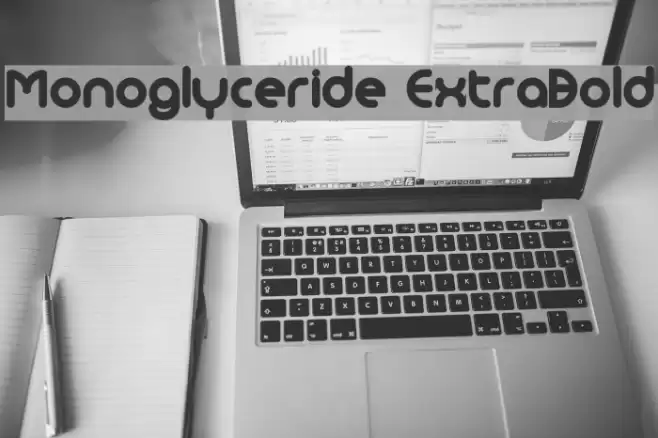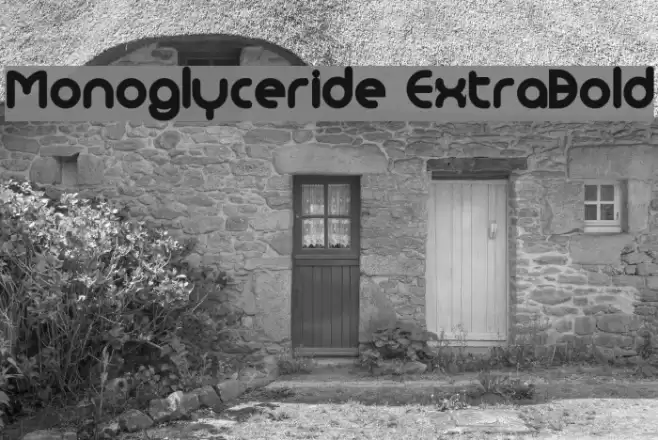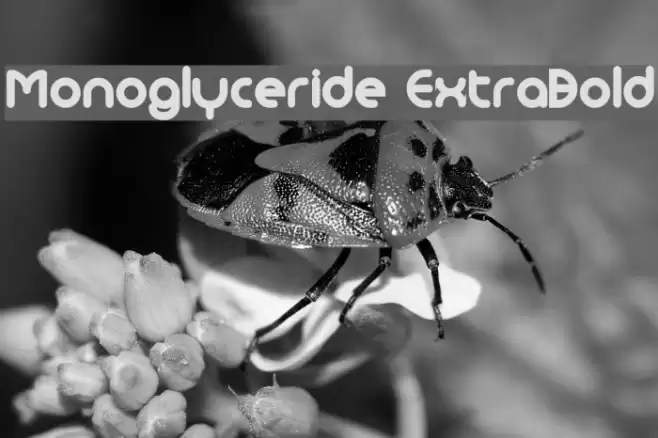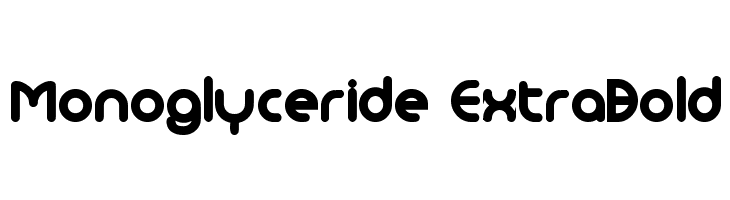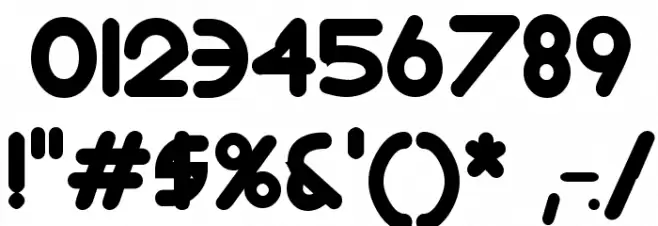
Monoglyceride ExtraBold Font
Monoglyceride ExtraBold Description
This font features a bold and rounded style with a modern and playful appearance. The characters are uniformly thick, contributing to a strong visual presence. The rounded edges and consistent stroke width give it a friendly and approachable feel. The uppercase and lowercase letters maintain a cohesive look, while the numerals and special characters are designed to match the overall aesthetic. This font's design is suitable for projects that require a bold statement with a touch of fun.
A bold, rounded font with a modern and playful style from Modern fonts.
- Proposed Projects: Ideal for branding, headlines, posters, and playful graphic design projects.